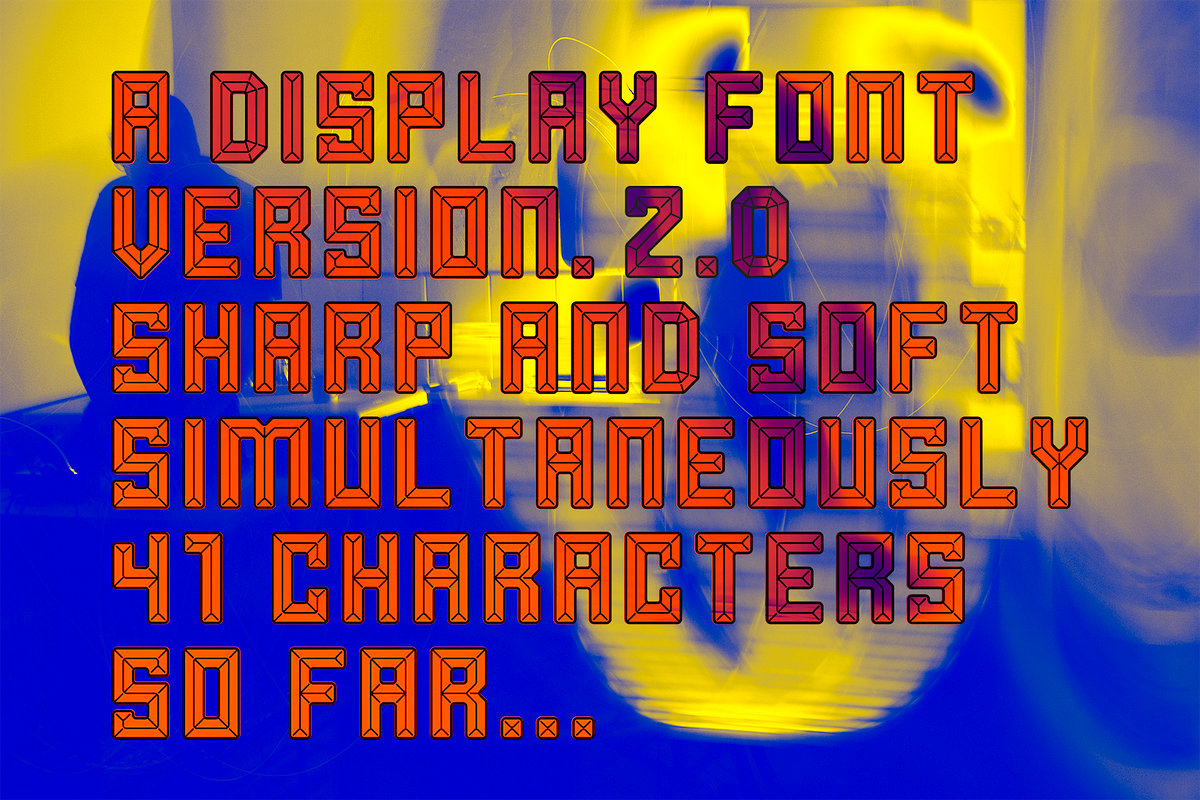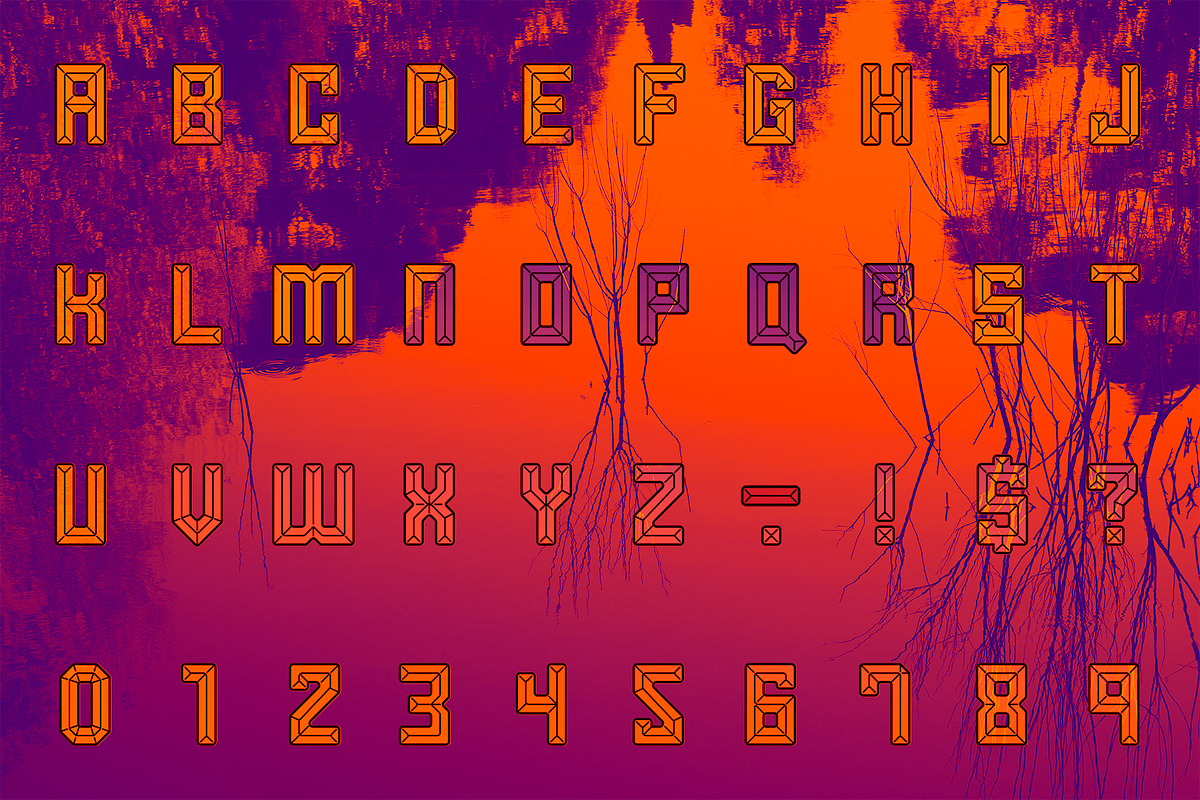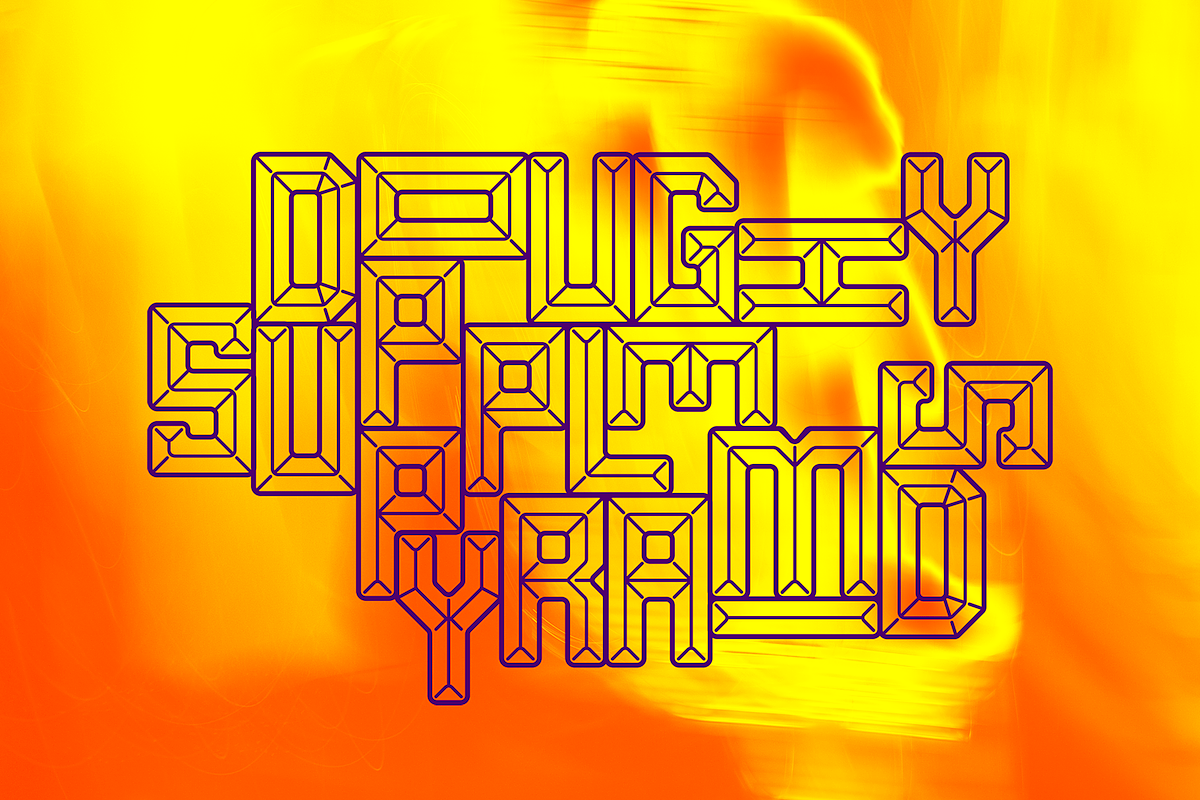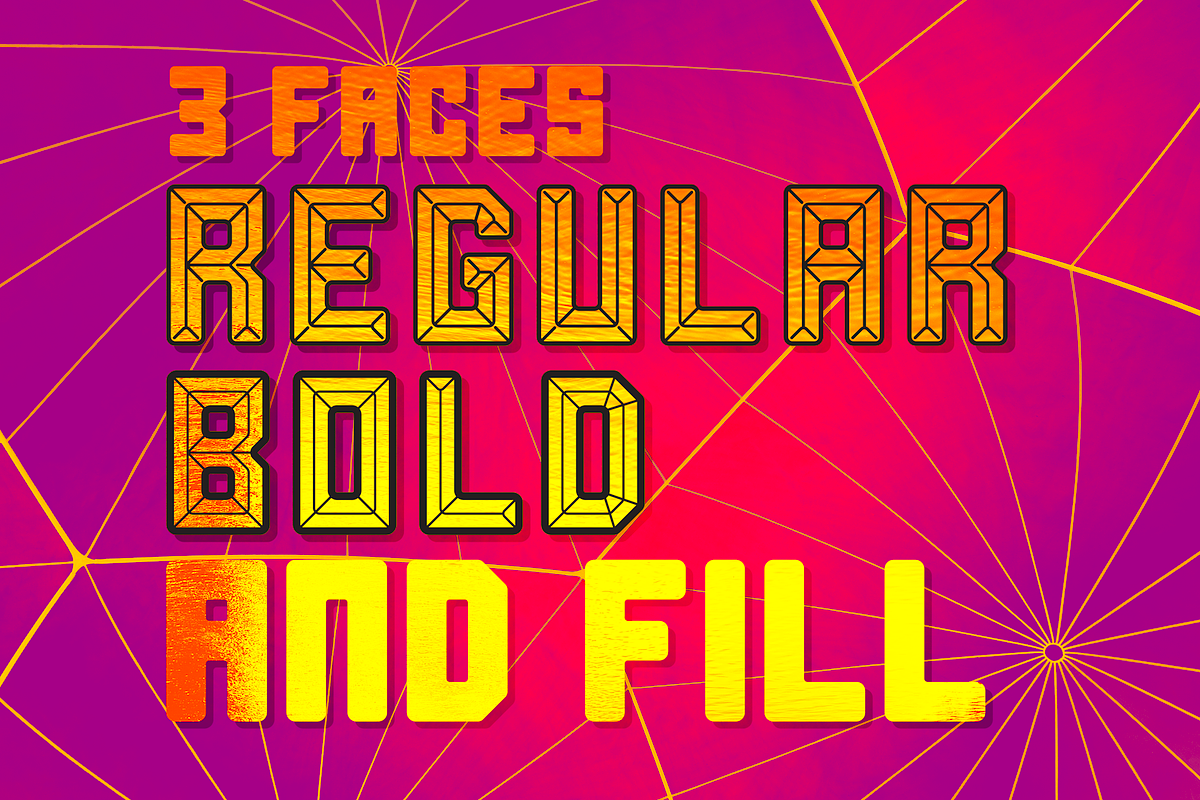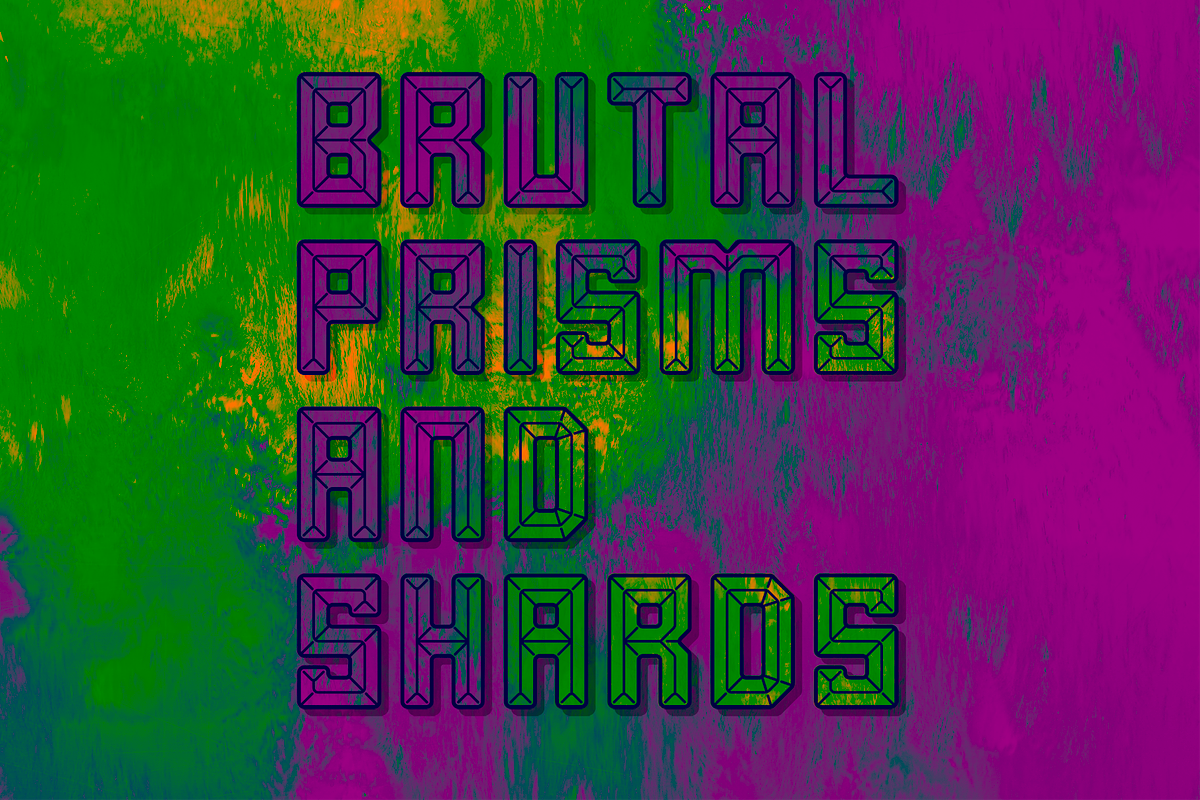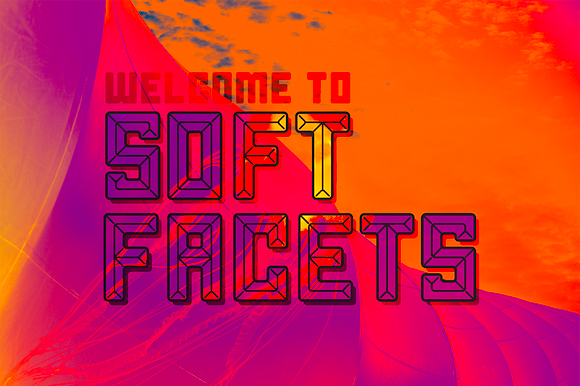
Soft Facets Font
Let me introduce you to Soft Facets V.2. The hard edged, but slightly soft 3D but not 3D font. Whatever it does, it will stand out for sure.
New Update to Version 2! Contains regular, bold and fill faces!
Capital case display font, with numbers and a smattering of punctuation - exclamation, question mark, full stop, dash, dollar sign.
Designed to be used for headers and in large formats. I mean, you can use it for body copy if you want, I’m not the boss of you, but damn, things will get funky
- Contains regular, bold and fill faces!
- Capital case display font, with numbers and a smattering of punctuation - exclamation, question mark, full stop, dash, dollar sign.
- Soft Facets Regular
- Soft Facets Bold
- Soft Facets Fill